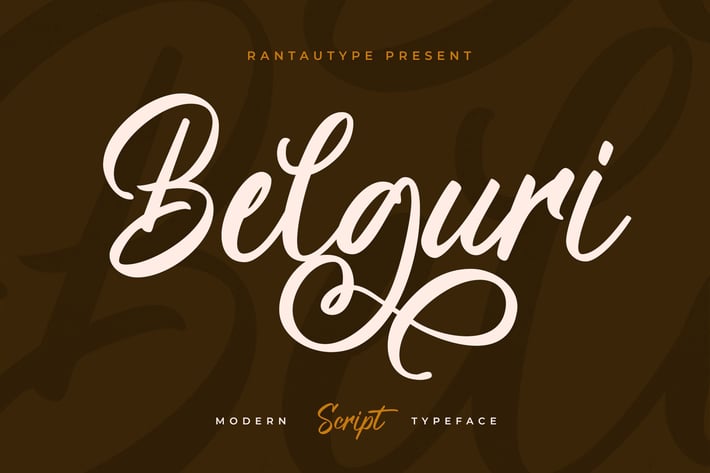
Belguri Script Font
Belguri is a modern script typeface that looks trendy with a natural and stylish shape. Experience perfect in a visual form for your project to stand out with belguri typeface, Belguri come with alternate, ligature and already support multilingual character.
Belguri is a perfect choice for any creative endeavor, chic, lifestyle design such as logos, advertisements, watermark on photography, stationery, branding project, display and magazine, invitation, corporate brand, product design, label, business project and many other project need handwriting taste.
Standar character A-Z and a-z
Ligature and alternate